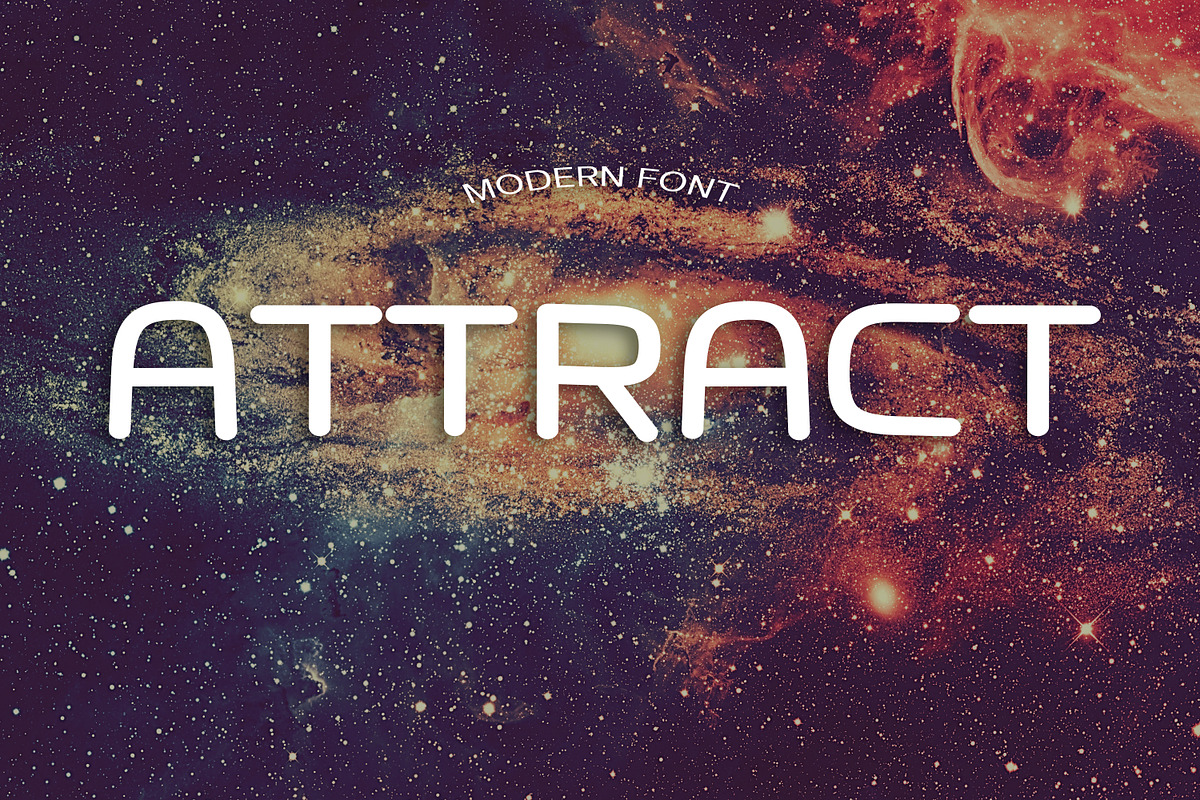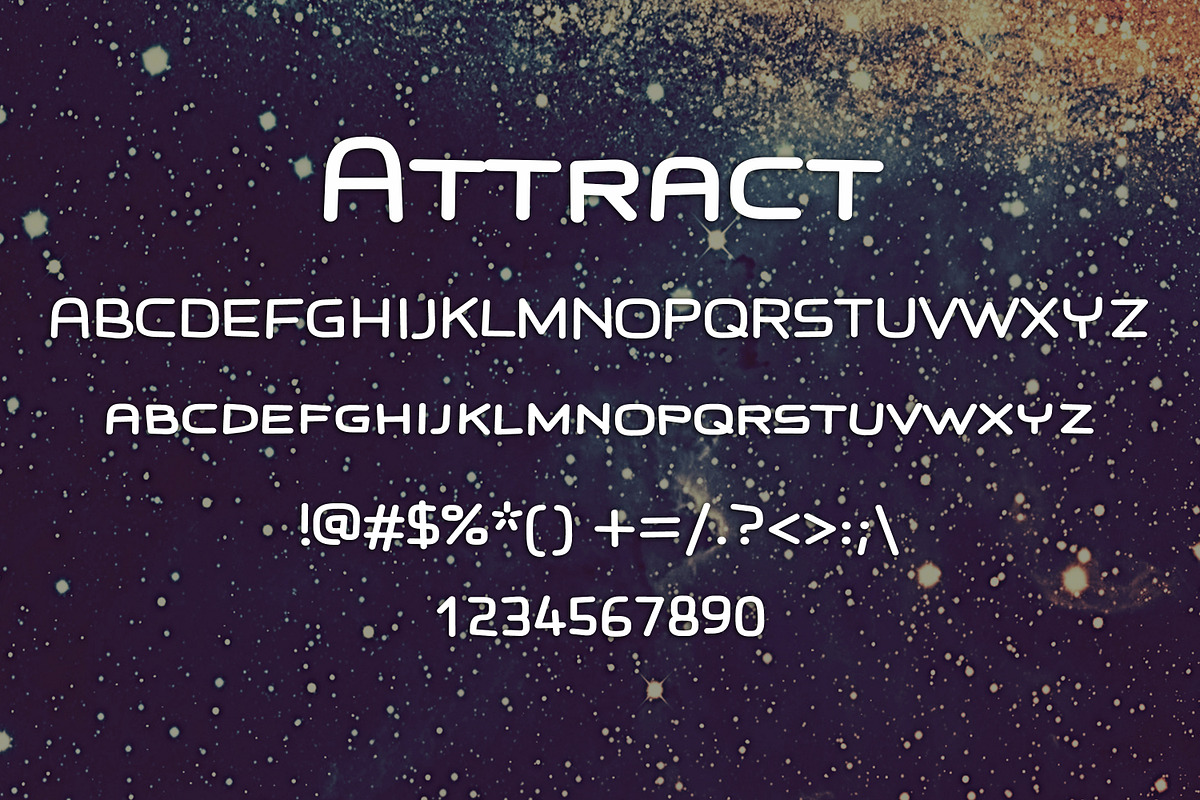
ATTRACT FONT
- Attract regular
Why ATTRACT FONT is worth a look
ATTRACT FONT by DmDesignsStoreArt fits naturally into Branding, posters, packaging, typography.